Looking for fresh ways to make your text stand out? Whether you’re designing social media graphics, presentations, or marketing materials, the right typography can make all the difference. While custom font design requires professional help, these clever online tools let you experiment with hundreds of stylish typefaces in seconds.
From elegant scripts to edgy display fonts, we’ve curated the top font generators that balance creativity with usability.
1. FontsGen – Instant Text Styling
This no-fuss generator converts plain text into 50+ eye-catching styles with Unicode magic. Get bold, italic, cursive, gothic, and decorative variations on FontsGen with one click—no downloads required.
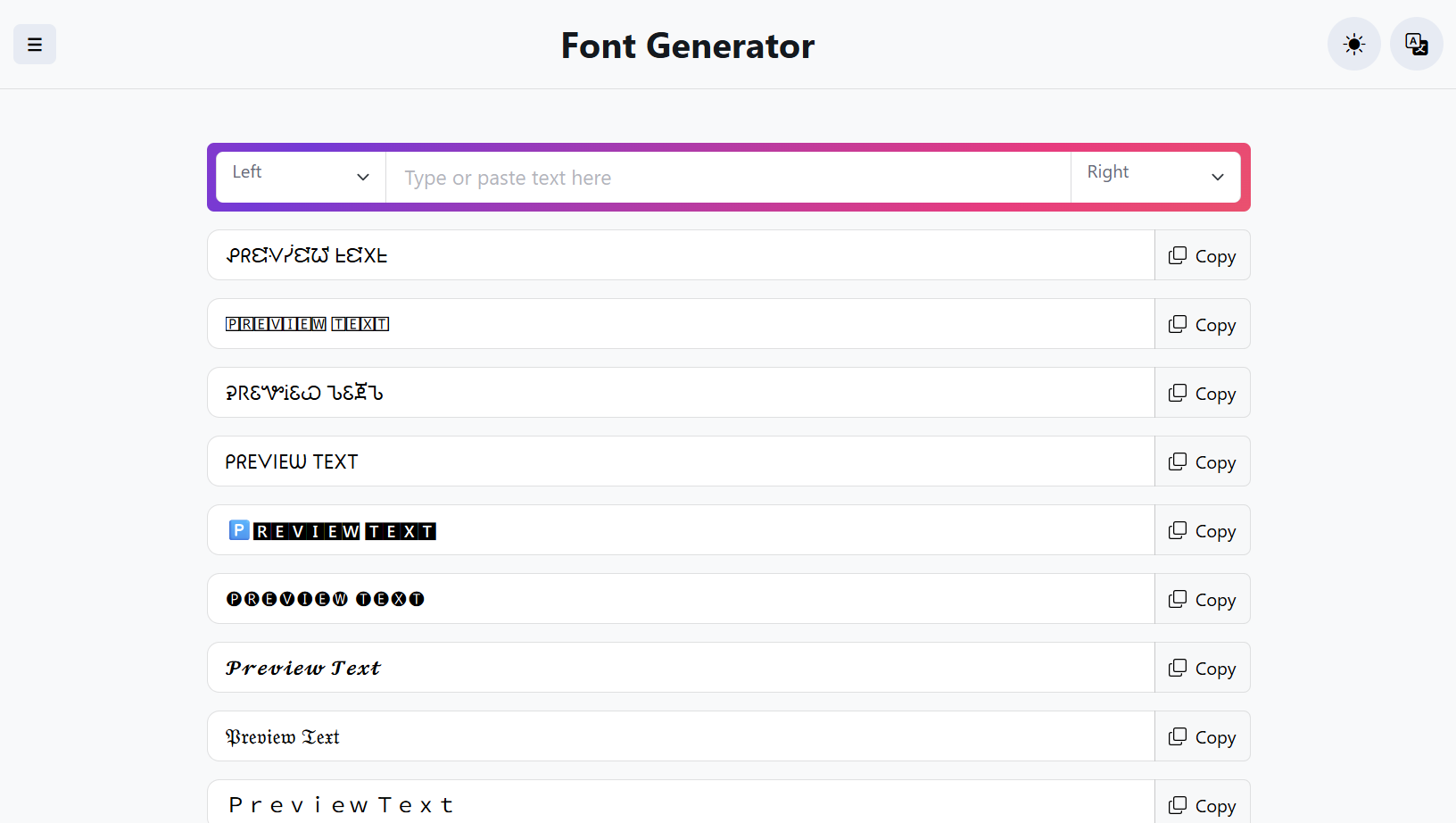
2. Font Meme – Pop Culture Typography
A treasure trove for designers, Font Meme offers official typefaces from major brands (Netflix, Twitch) alongside fonts inspired by movies, shows, and games. Perfect for themed projects or nostalgic designs.
3. Fancy Fonts – Social Media Ready
Tailored for Instagram, Twitter, and Facebook, this tool delivers trendy fonts that work across platforms. Flip text upside down, add strikethroughs, or go bold—all with intuitive controls.
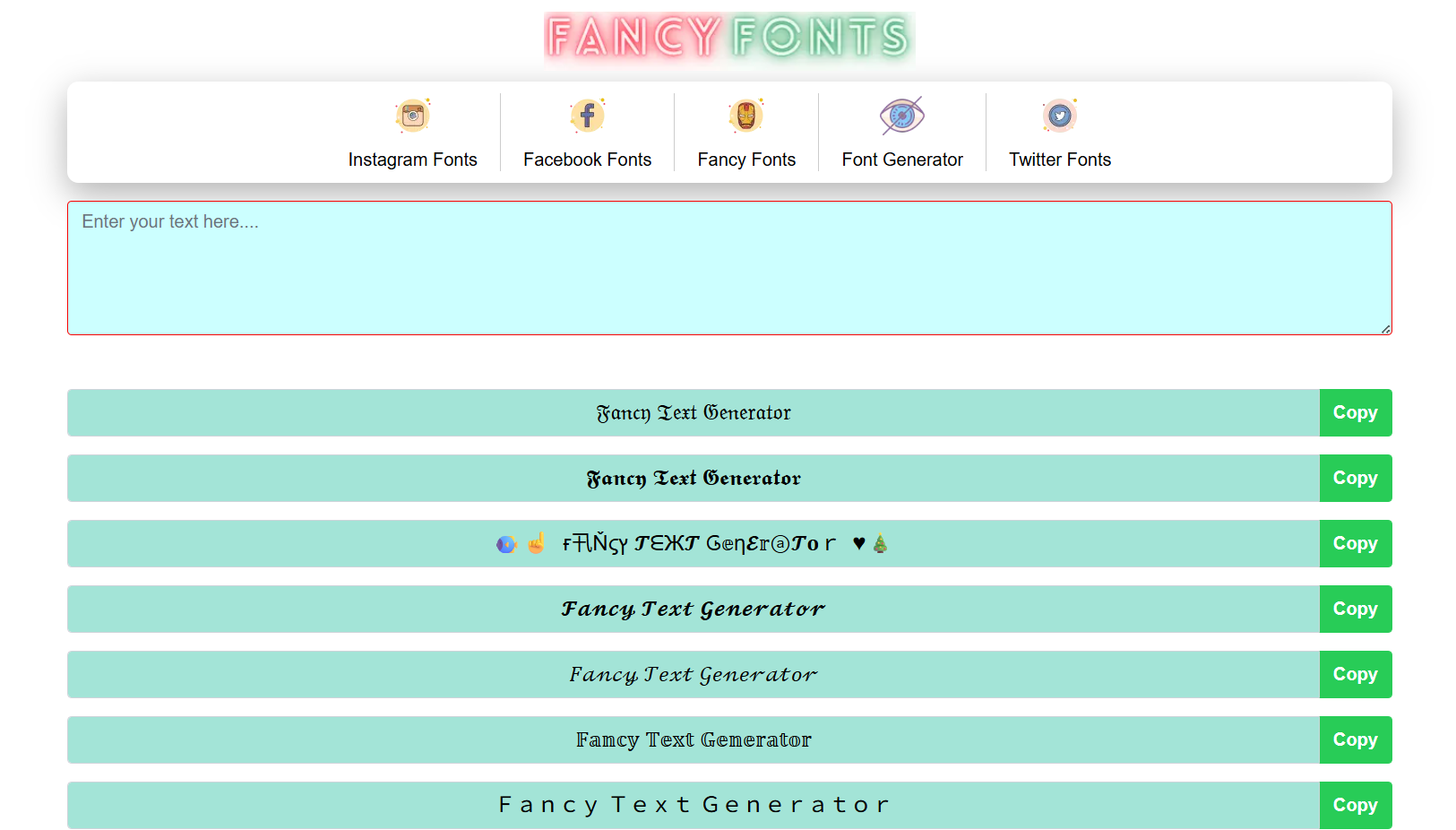
4. Fancy Generator – 200+ Themed Styles
Organized by aesthetic (cute, spooky, retro), this generator spices up text with emoji combos. Its “random font” feature is great for unexpected inspiration.
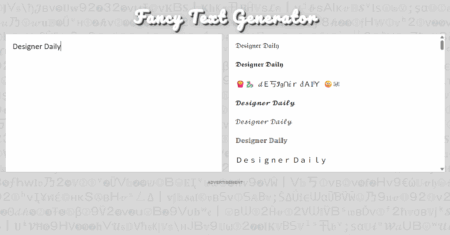
5. Smiley.cool – Playful Customization
More than just fonts, this tool lets you build a fully personalized alphabet. Pair your text with unique emoji art for extra personality.
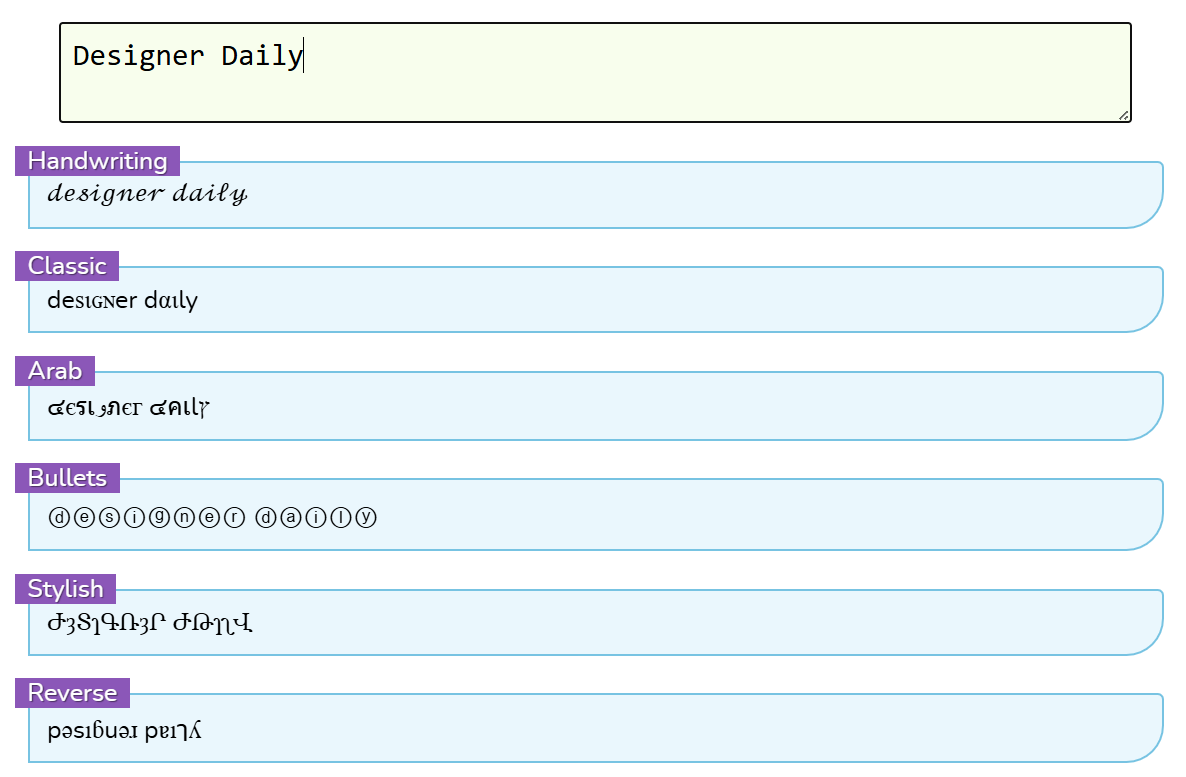
6. AnyTextEditor – Minimalist Approach
A streamlined interface for quick font swaps. Bonus: Easily embed symbols and smileys into your text for added flair.
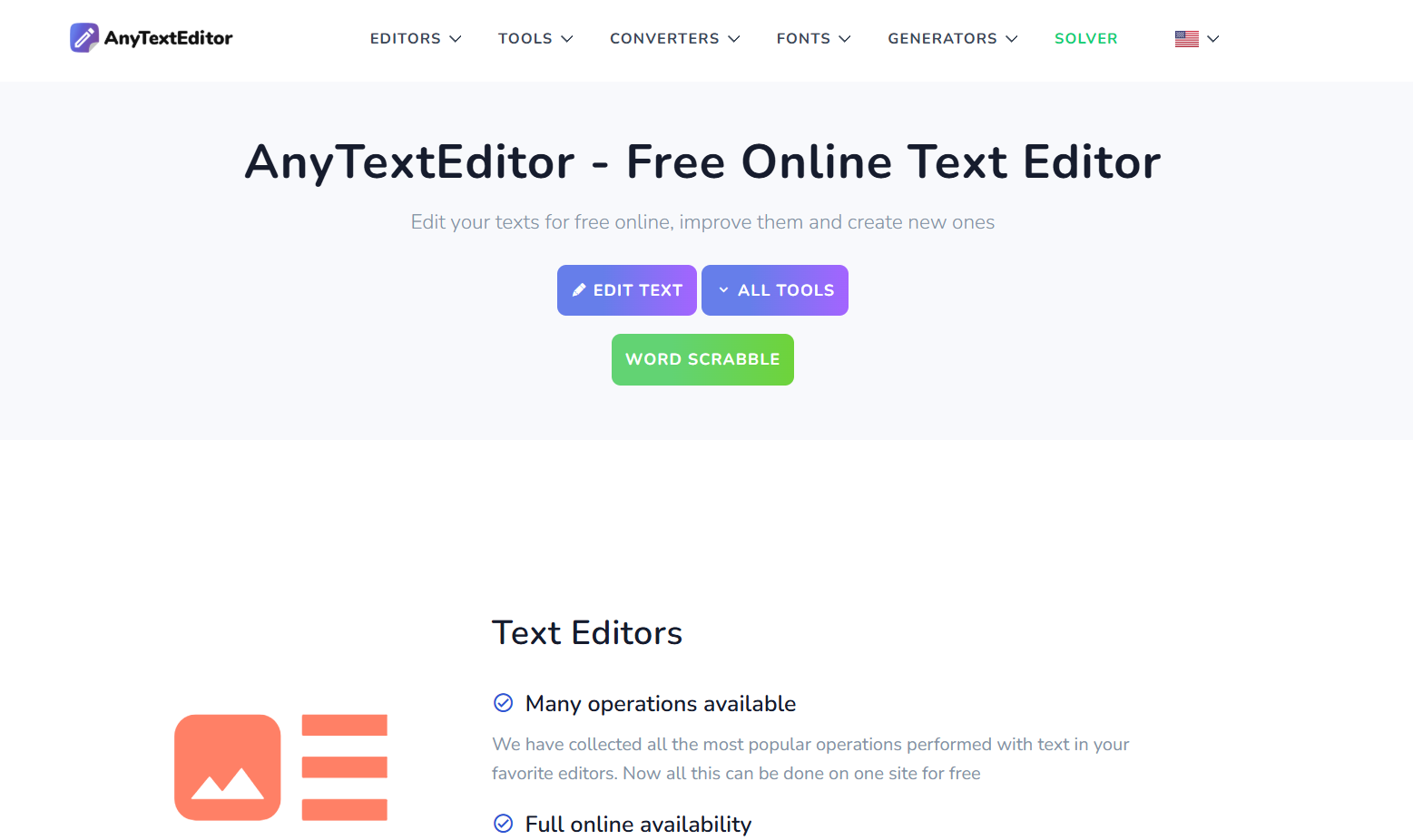
7. AlvaroThomaz – European Flair
This Spanish-based generator offers a mix of sophisticated and quirky fonts, many with built-in symbols for social bios or creative projects.
8. Fontiner – Precision Labeling
A designer’s secret weapon, Fontiner clearly tags each font (e.g., “Serif Italic” or “Mirror Flip”) so you can find the perfect match fast.
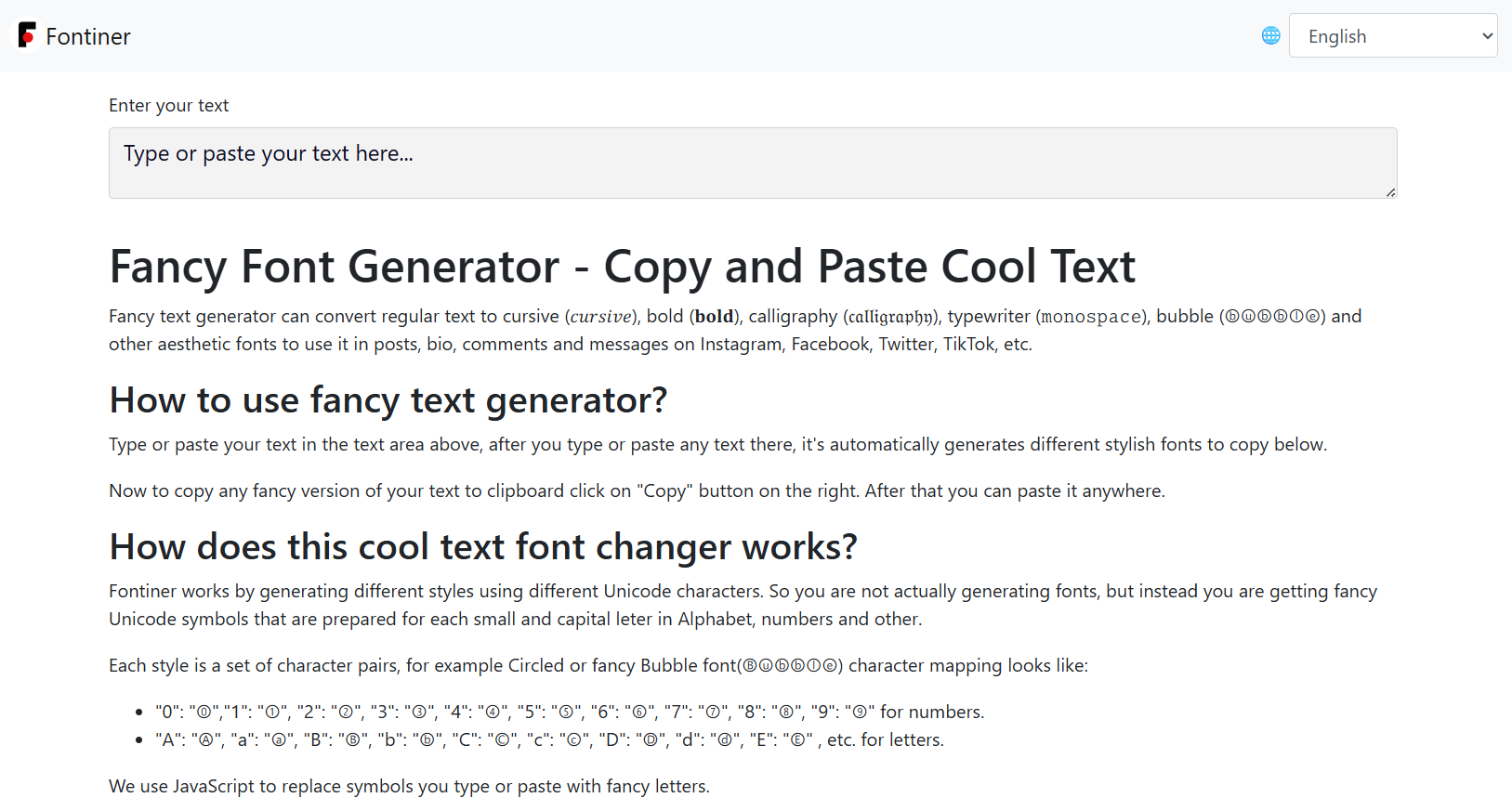
Why Designers Love Font Generators
- Social Media Edge: Break through the noise with unconventional text styles that boost engagement.
- Rapid Prototyping: Test typography concepts before committing to custom designs.
- Creative Spark: Overcome blocks with randomized font options and trending styles.
Pro Tips for Maximum Impact
- Less Is More: Reserve elaborate fonts for headlines or accents—legibility trumps novelty.
- Brand Alignment: Ensure playful fonts don’t clash with your company’s tone (e.g., avoid comic styles for law firms).
- Cross-Platform Check: Some Unicode fonts won’t display properly in emails or certain apps—always preview.
While these tools can’t replace professional type design, they’re perfect for quick wins. For logos or long-term branding, consider pairing generator experiments with a designer’s expertise to craft something truly unique.